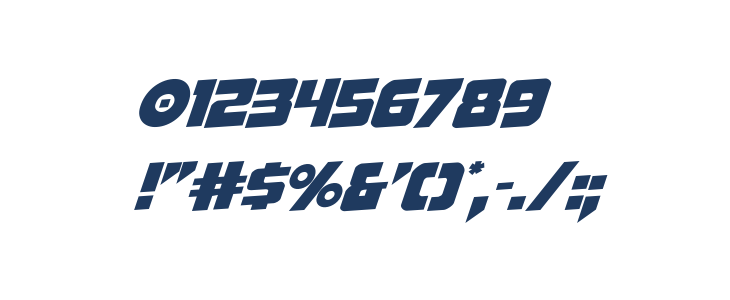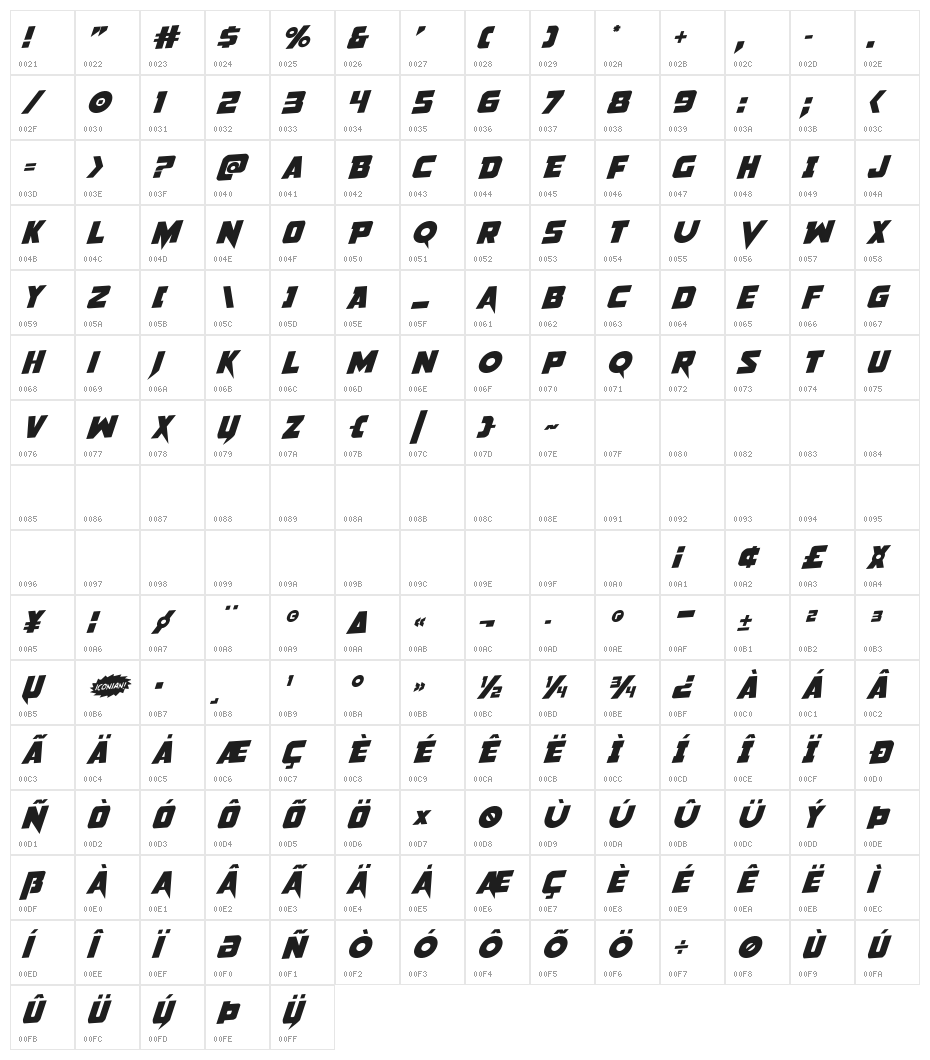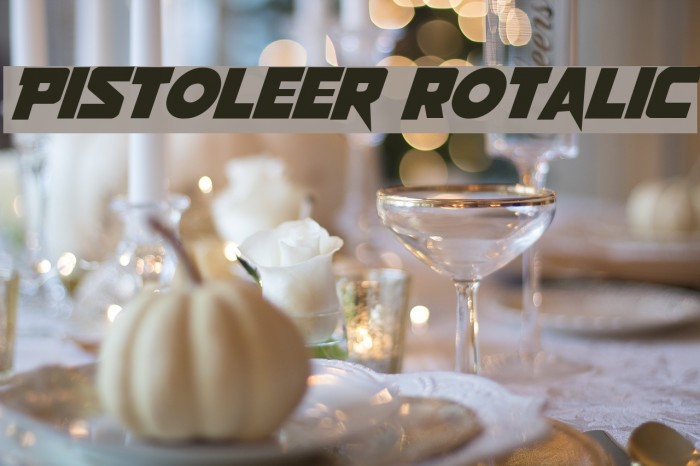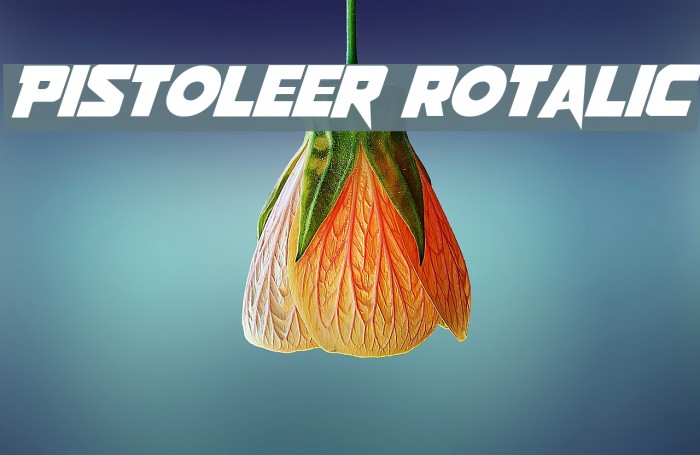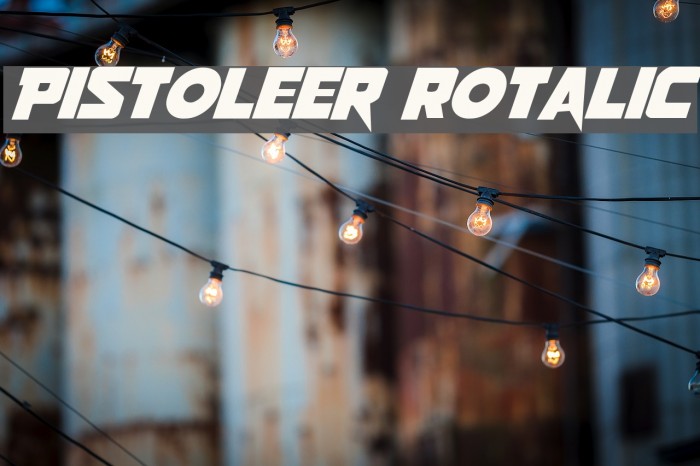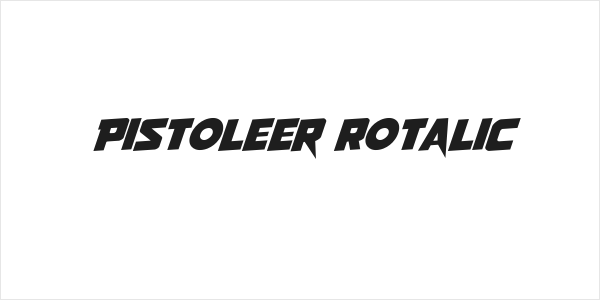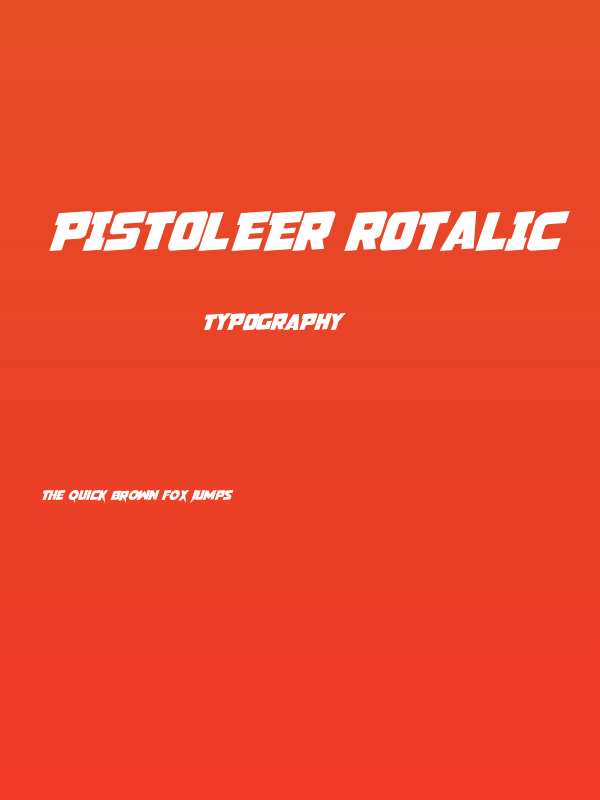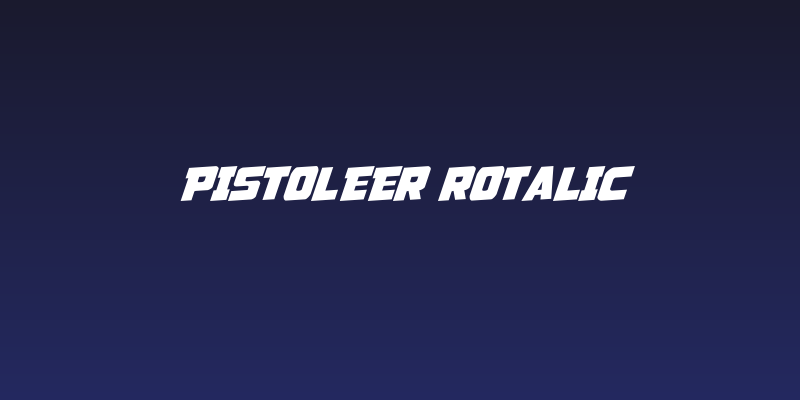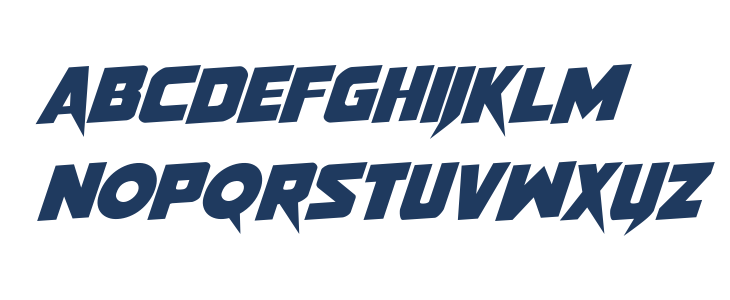
Pistoleer Rotalic Font
Pistoleer Rotalic Description
This font features a bold and dynamic design with sharp, angular edges and a strong presence. The characters are italicized, giving a sense of movement and energy. The uppercase letters are particularly striking, with a futuristic and aggressive style that makes them stand out. The numbers and special characters maintain this bold aesthetic, ensuring consistency across all glyphs. This font is ideal for projects that require a strong visual impact, such as sports branding, action movie posters, or video game titles.
| Proposed Projects | Ideal for sports branding, action movie posters, video game titles, and other projects requiring a strong visual impact. |